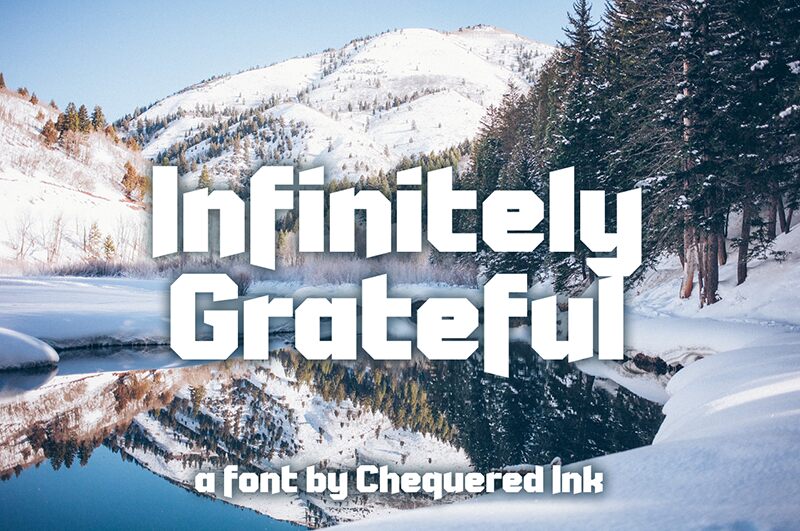
Infinitely Grateful
Infinitely Grateful font from Chequered Ink is a free techno display font inspired by strong geometric shapes and high-tech influences. The bold font carries an industrial appeal with a retro-futuristic vibe. There’s clearly an impact form the digital/technological aesthetics of the late 20th century within this one.
The contemporary and suitable use cases could include poster designs for tech events, video game titles, or science fiction themes. Add to that branding projects, logos, website headings, social media banners, music album covers…